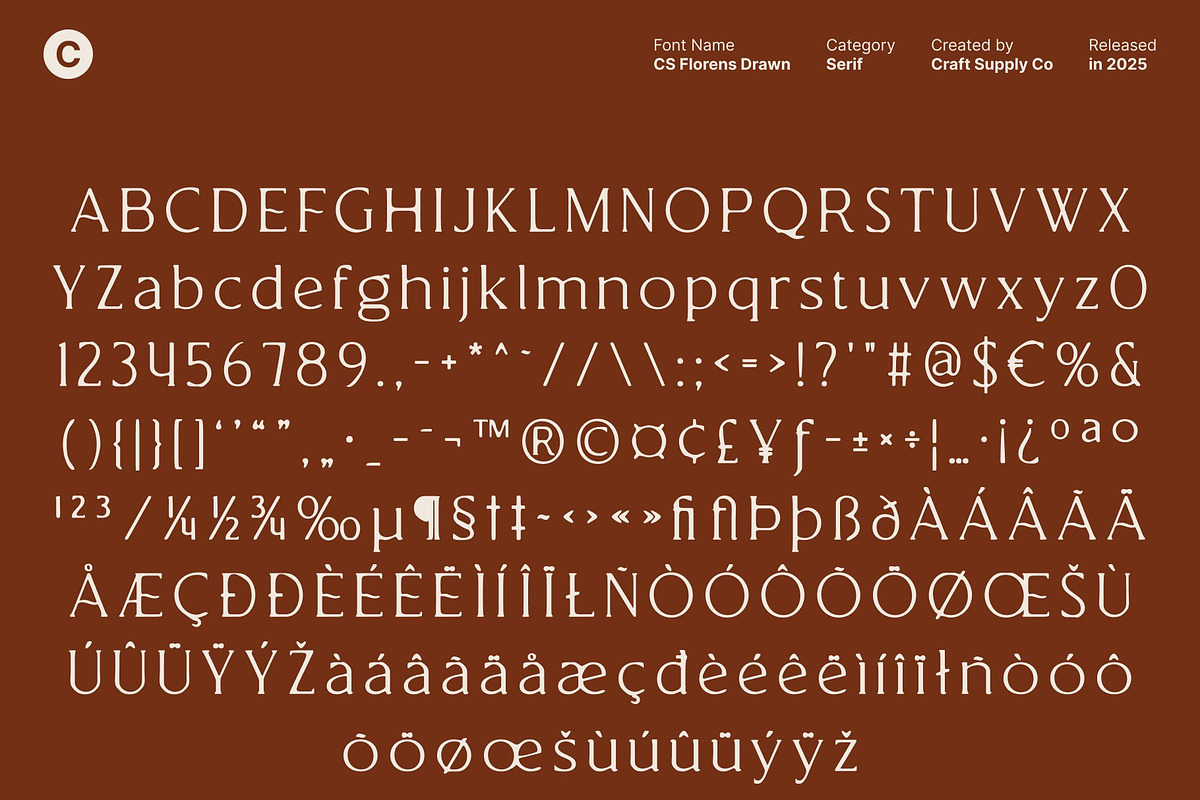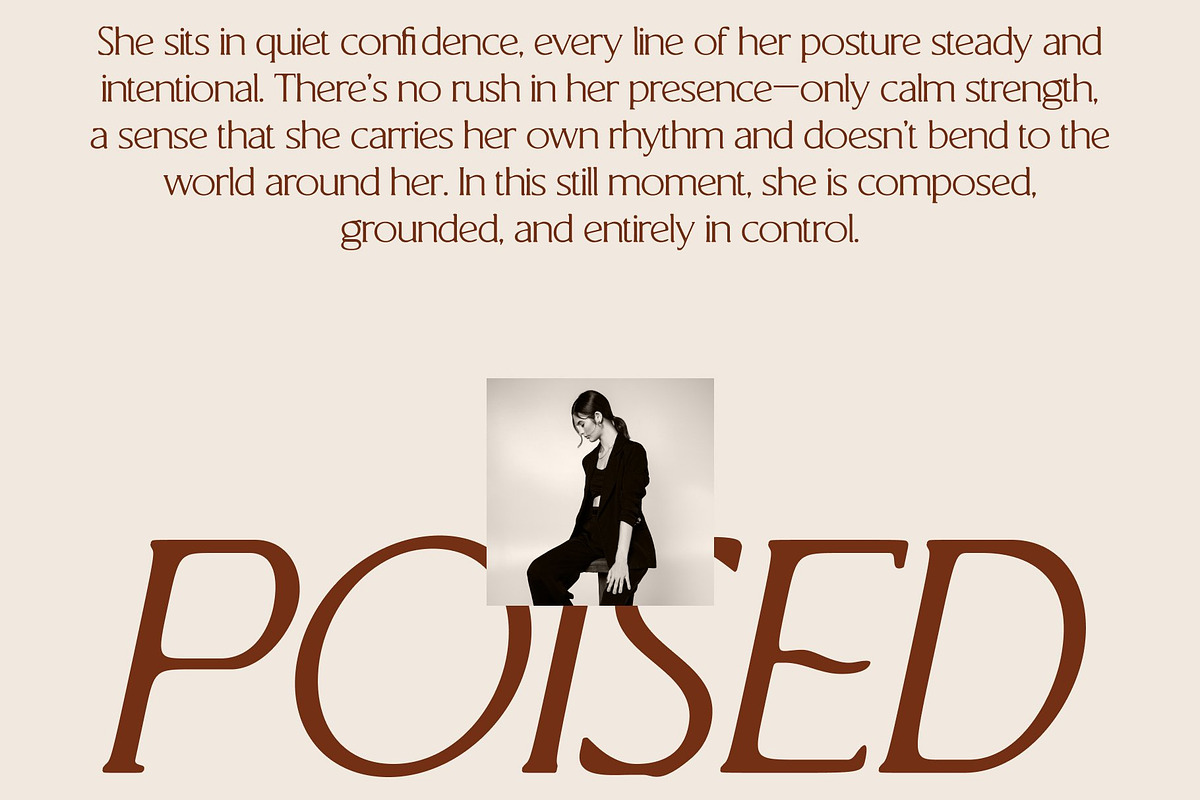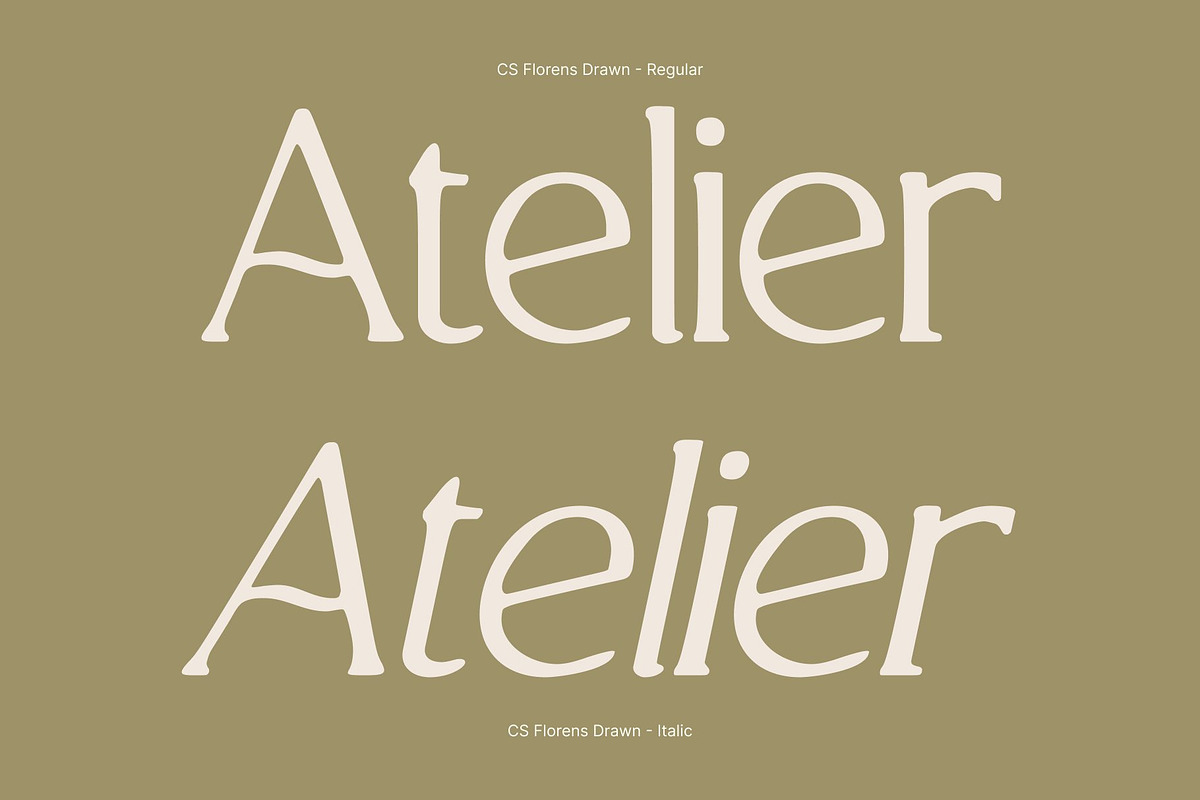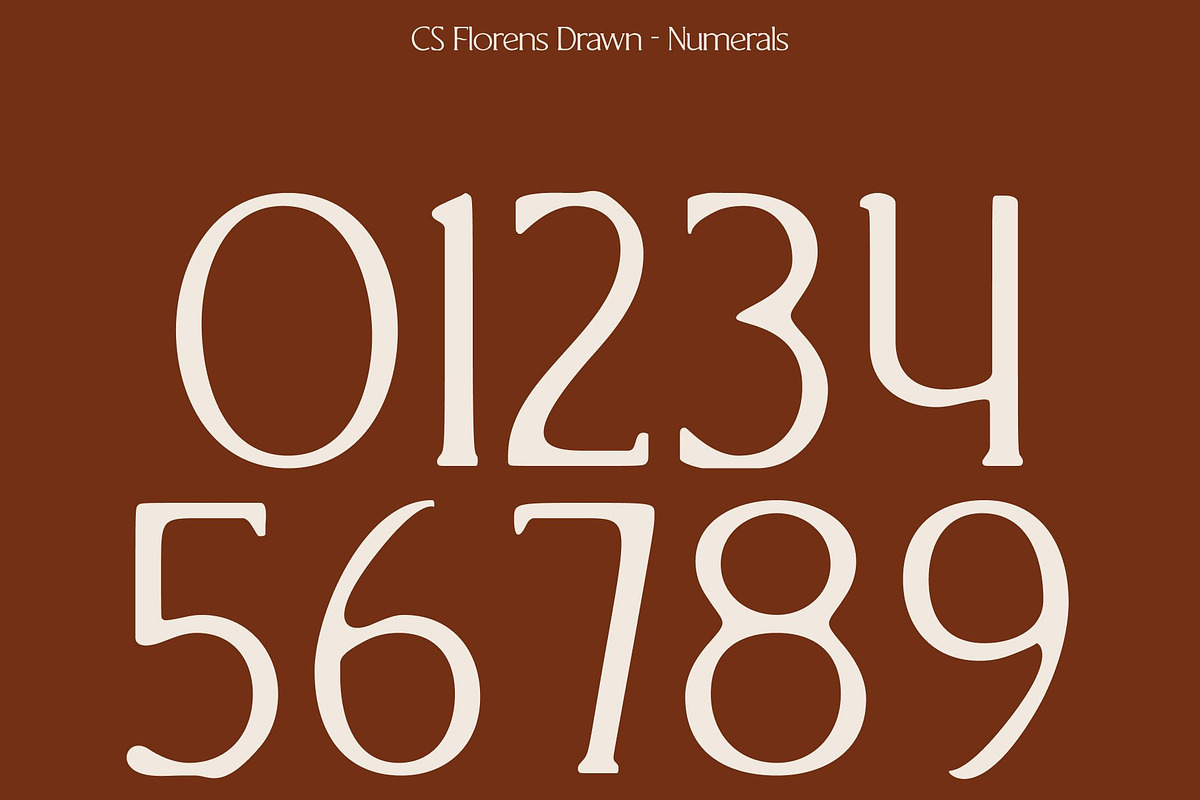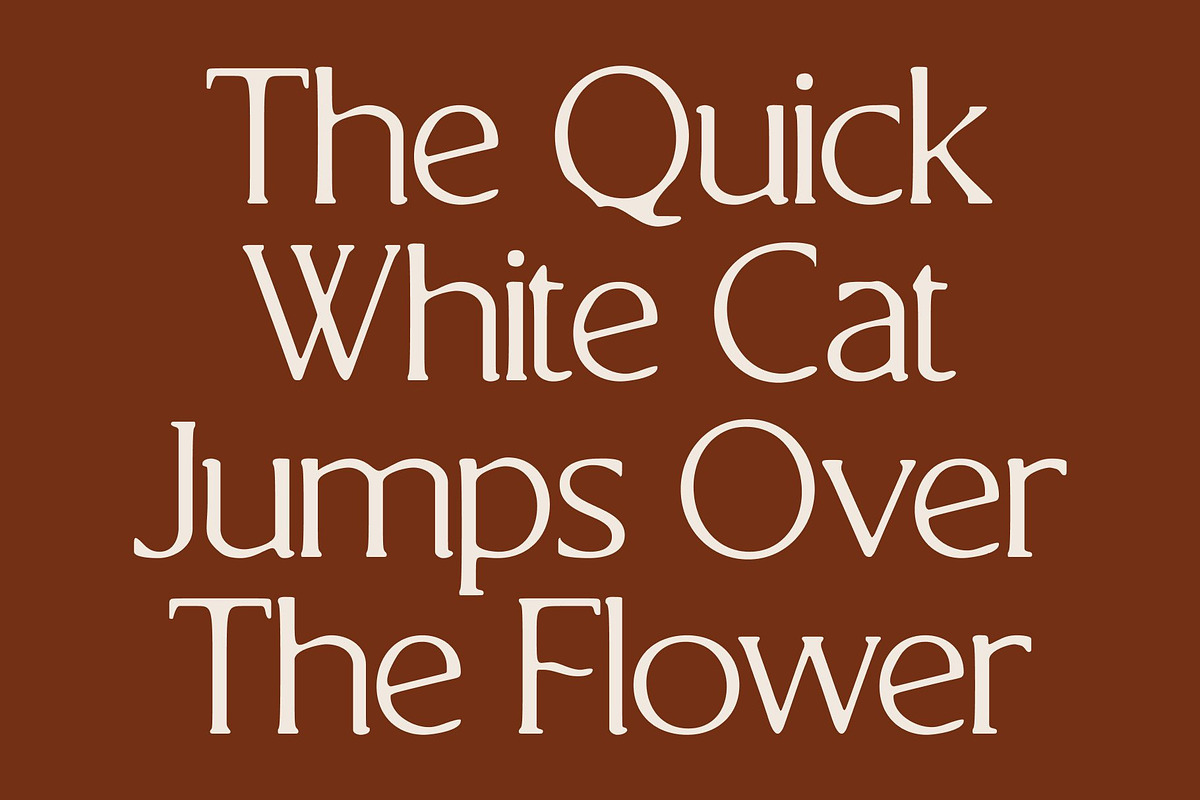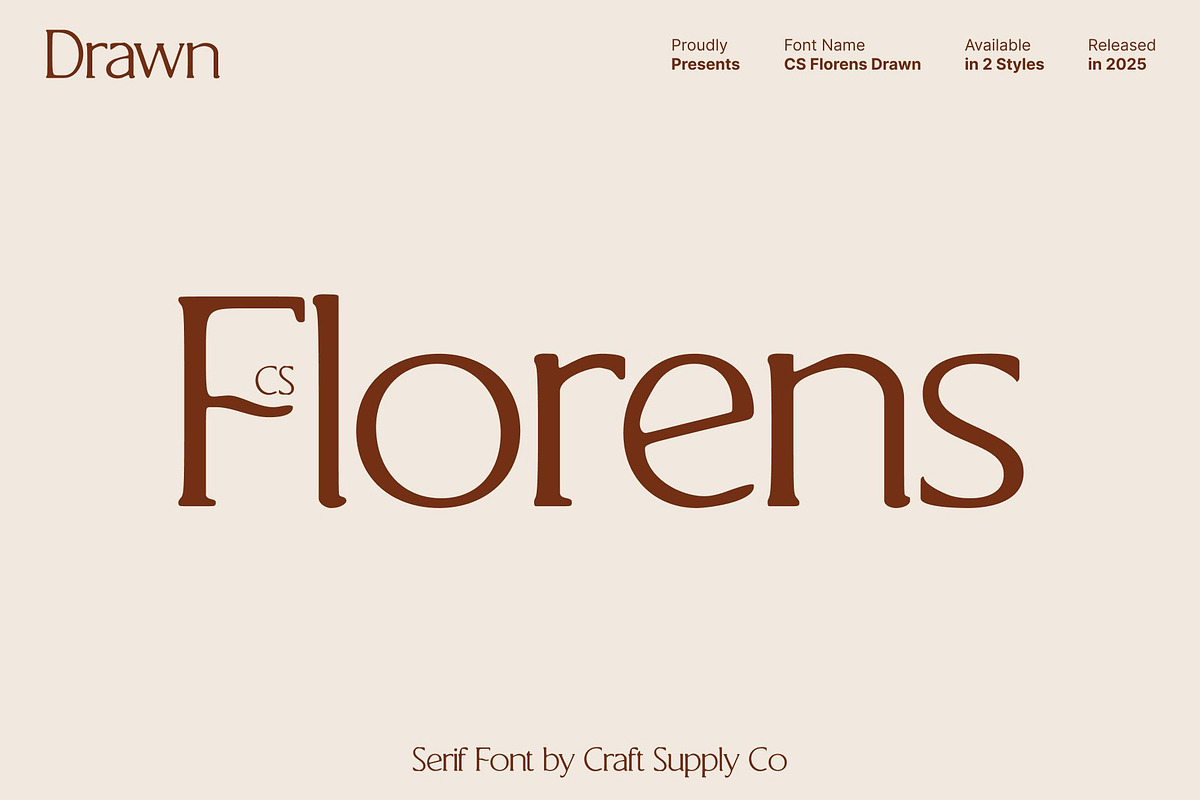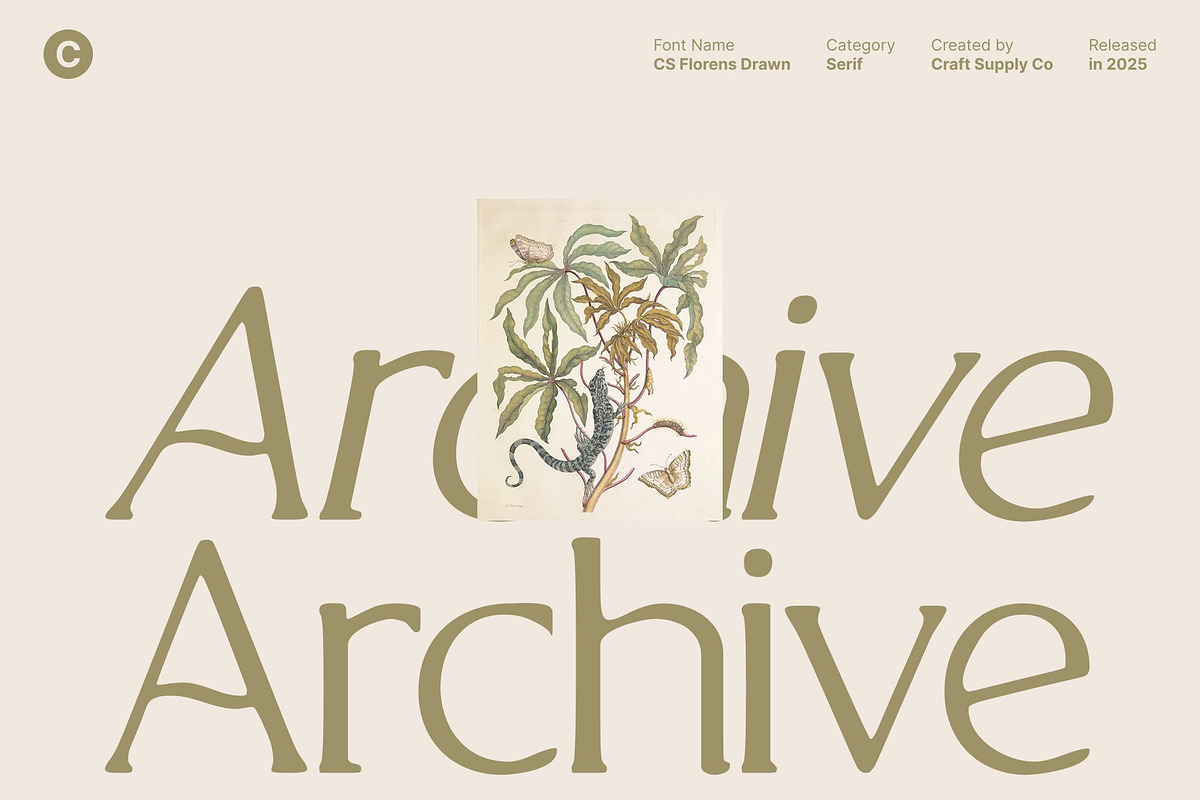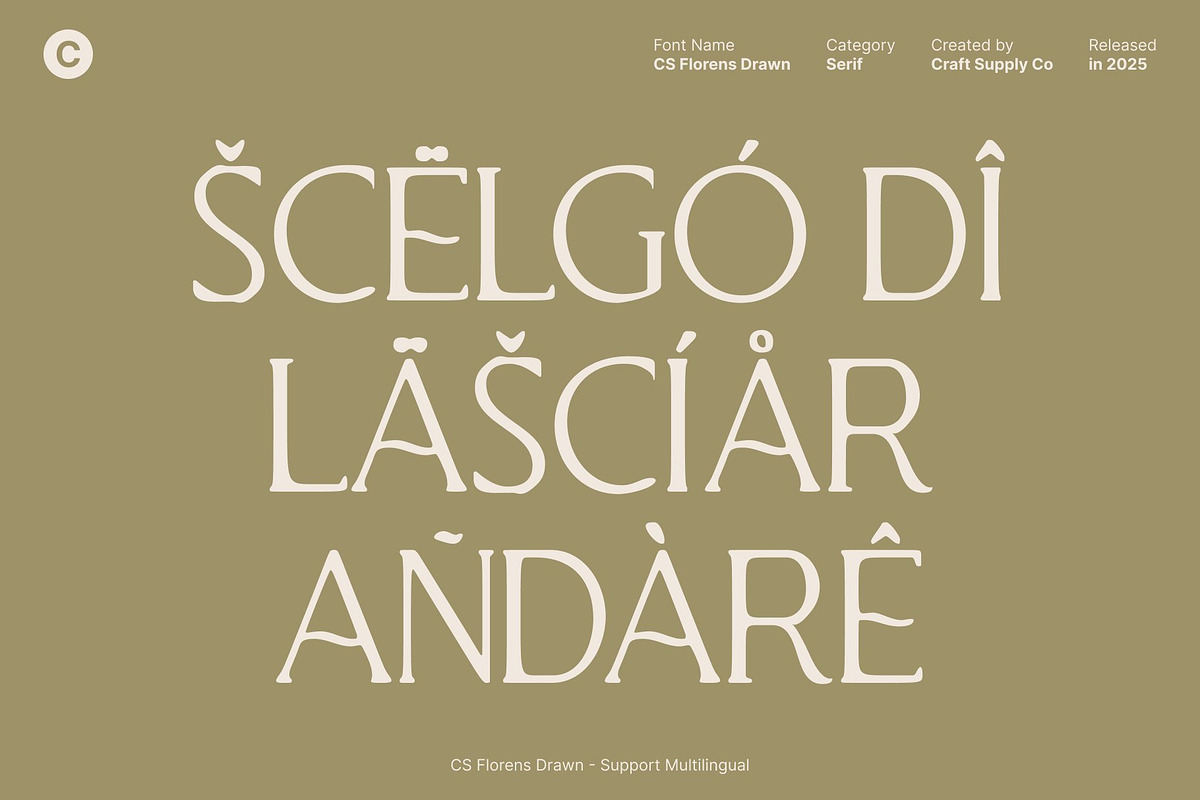
CS Florens Drawn
CS Florens Drawn – Elegant Serif Font with Handcrafted Refinement
Refined Elegance with a Natural Hand-Drawn Touch This is a high-end serif font that merges classic sophistication with subtle handcrafted texture. Its elegant curves and precise geometric forms are enhanced by a drawn effect, giving each character a natural, unique quality that adds warmth and personality to traditional serif styling.
Geometric Precision with Artistic Flow The font balances structured geometry with the organic imperfections of hand-drawn strokes. This combination creates a visually harmonious rhythm that is both polished and approachable, elevating editorial layouts, branding, and luxury design projects.
Perfect for Premium Branding and Editorials Ideal for magazines, high-end packaging, logos, and sophisticated advertising, this font conveys timeless luxury while maintaining a contemporary feel. Its handcrafted details bring a subtle artistic flair, making it a versatile choice for designers who want elegance with personality.
Versatile, Polished, and Distinctive From headlines to refined body text, this font ensures clarity and readability while exuding charm and sophistication. This font transforms any project into a statement of style, balance, and enduring beauty.
- CS Florens Drawn Regular
- CS Florens Drawn Italic